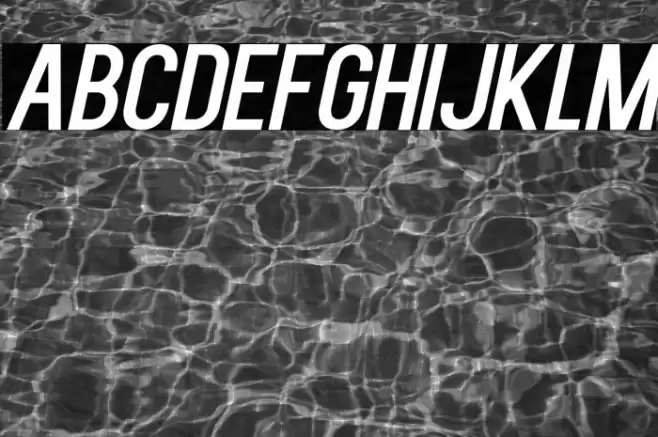
Kenzo-Italic Font
Kenzo-Italic Description
This font features a sleek, modern design with a distinct italic slant, giving it a dynamic and forward-moving appearance. The characters are bold and slightly condensed, which enhances readability while maintaining a stylish look. The uppercase and lowercase letters are well-proportioned, and the numbers are clear and consistent in style. Special characters are included, offering versatility for various design needs. The overall aesthetic is clean and contemporary, making it suitable for a wide range of applications.
A modern, italic font with bold, slightly condensed characters from Uncategorized fonts.
- Proposed Projects: Ideal for branding, advertising, and editorial design projects that require a modern and dynamic touch.
- Use Case: Headlines, Logos, Branding